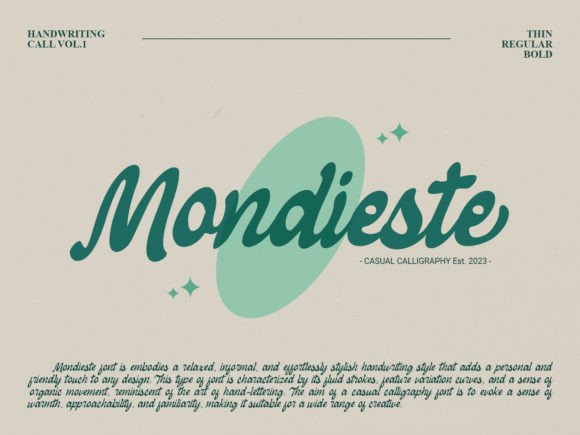
Behold the Mondieste Font, a handwritten treasure that captivates with its informal charm. This isn't just a font; it's an expression of individuality, a stroke of genius that adds a personal touch to your creative endeavors. Its fluid strokes, like a gentle dance of ink, bring a sense of warmth and approachability to your designs.
Dive into the world of Mondieste, where creativity knows no bounds. This script font is the perfect companion for your exhibition titles, seamlessly blending elegance and personality. Its organic movement, reminiscent of hand-lettering, invites readers to connect with your message on a deeper level.
Envision your exhibition titles adorned with Mondieste's effortless style. It's like a personal invitation, a glimpse into the artistry of your creations. The font's slight variations of curves add a touch of intrigue, drawing viewers in and captivating their attention.
With Mondieste, your exhibition titles are not just words on a page; they're a reflection of your unique perspective. Its casual nature creates a sense of intimacy and connection, inviting viewers to engage with your art on a personal level.
Choose Mondieste and let your exhibition titles shine. Its user-friendliness makes it a joy to work with, allowing you to effortlessly craft titles that resonate with your audience. It's the perfect blend of elegance and playfulness, an essential tool in your creative arsenal.